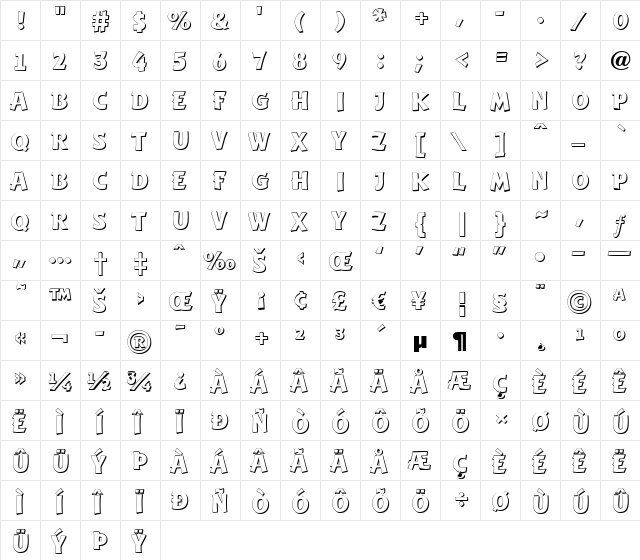
a_Writ3Dxtr Regular
| Designer | W.Chufarofsky & M.Slutsker |
Design Context for a_Writ3Dxtr Typeface
a_Writ3Dxtr offers clean, dependable letterforms without strong stylistic allegiance, making it a practical choice for designers who need flexibility.